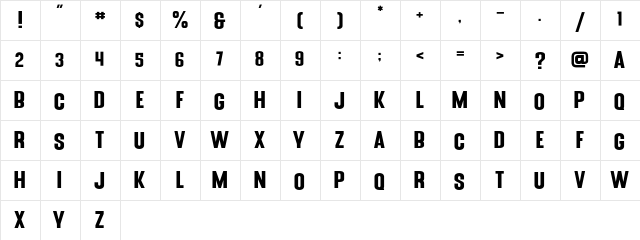
Blue Fonte Sans Regular
| Foundry | Khurasan |
| Designer | Khurasan |
Design Context for Blue Fonte Sans Typeface
Blue Fonte Sans takes a measured approach to typography — its balanced proportions and neutral character make it a reliable workhorse for both digital and print work.